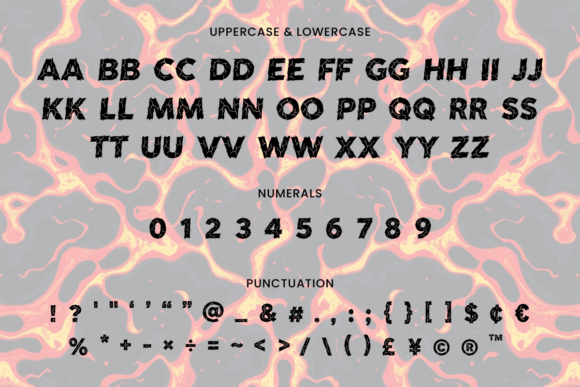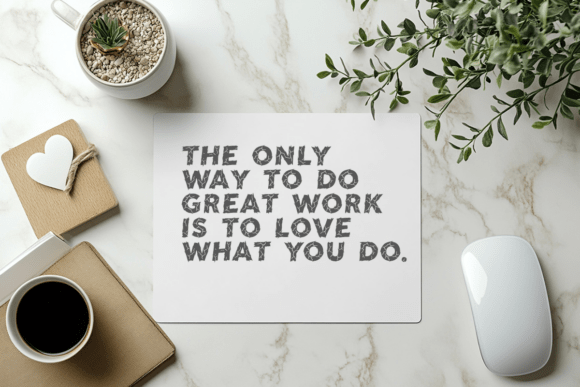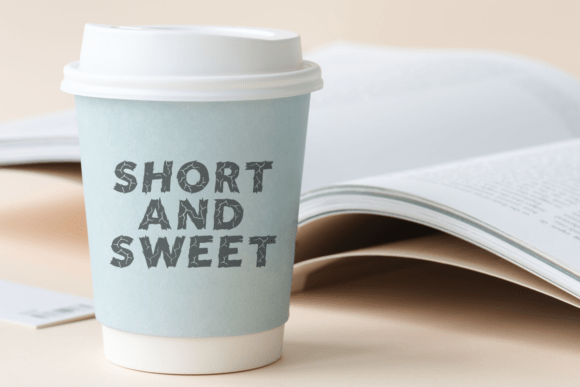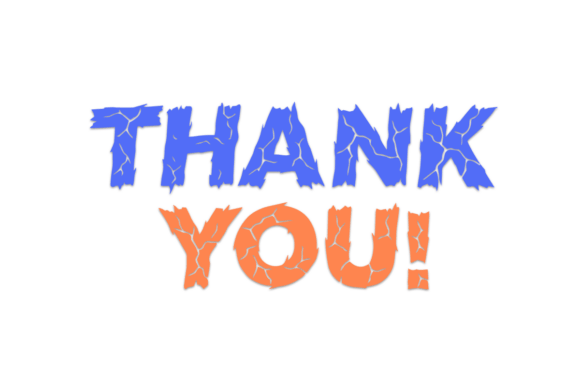
Introduction to Magma Jagged Font
Unleash raw intensity in your designs with Magma Jagged, a grunge, distressed font that feels forged in heat and chaos.
With its rough edges, fractured lines, and worn texture, this typeface captures the energy of cracked stone, molten surfaces, and rebellious creativity Perfect for posters, album artwork, streetwear branding, gaming graphics, and bold headlines, Magma Jagged typeface brings a rugged, high-impact look to any project.
Key Features of Magma Jagged Font
Why Choose Magma Jagged Font?
Magma Jagged Font offers exceptional quality and versatility, making it a valuable addition to your design toolkit. Whether you’re creating for personal projects or commercial use, Magma Jagged Font delivers professional results.